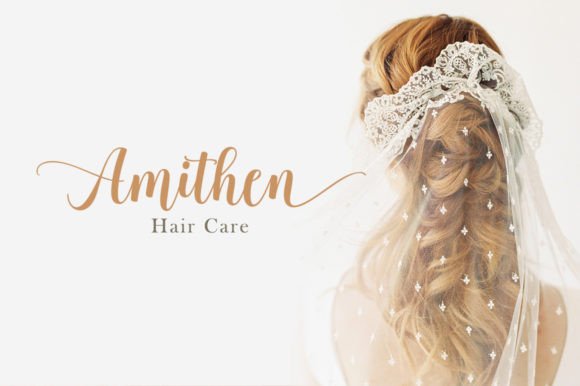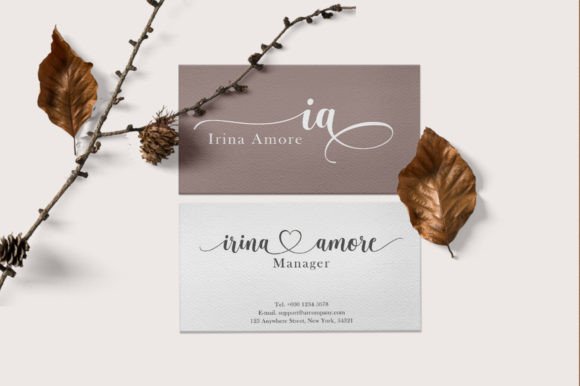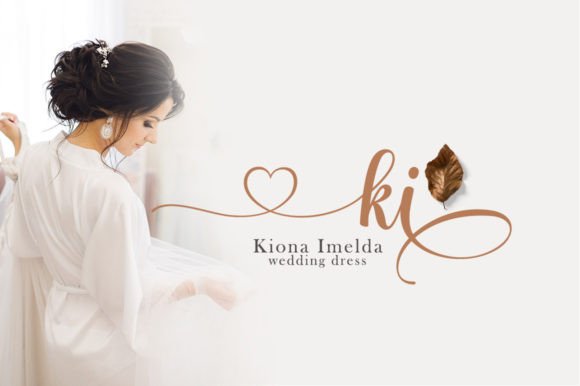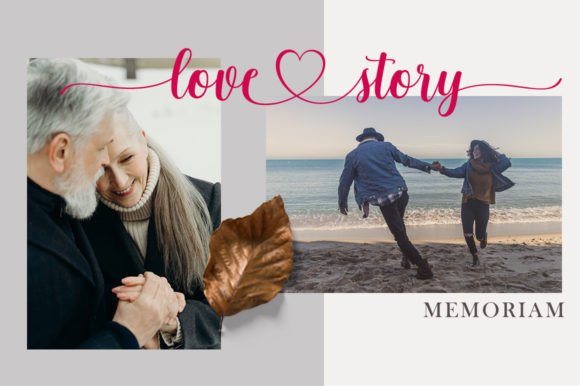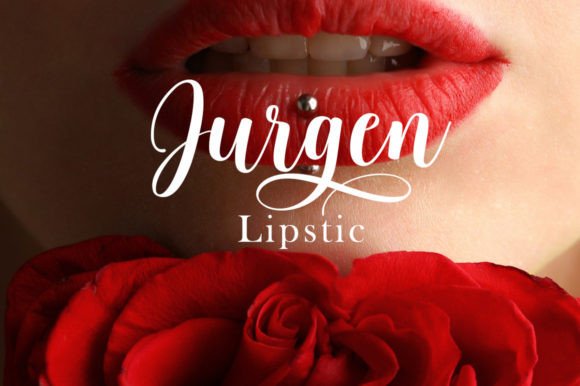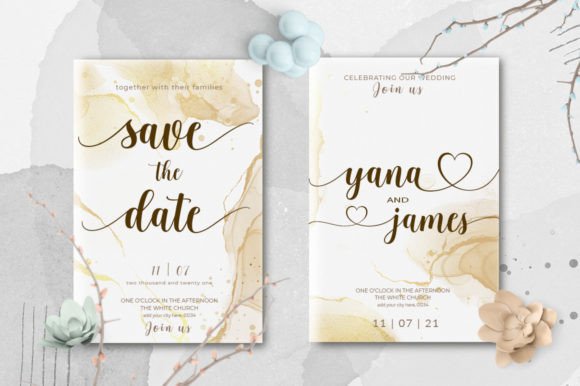
Introducing Adiya Font: Elevate Your Designs with Elegance and Sophistication
In the world of typography, a font can make or break a design. For designers and crafters seeking to add a touch of luxury and refinement to their work, Adiya Font is an exceptional choice. This stunning script font is designed to impress, with its flowing letters and exquisite aesthetic. In this article, we’ll explore the features and benefits of Adiya Font, and how it can elevate your designs to new heights.
A Font of Unparalleled Elegance
Adiya Font is a masterpiece of typographic design. Each letter is carefully crafted to flow effortlessly into the next, creating a seamless and elegant look. This font is perfect for designs that require a touch of sophistication, such as wedding invitations, luxury logos, and high-end branding. With Adiya Font, you can add a level of refinement and poise to your work that will leave a lasting impression.
Key Features of Adiya Font
- Stylish and Exquisite Design: Adiya Font boasts a unique and captivating design that is sure to turn heads.
- Seamless Letter Flow: Each letter flows effortlessly into the next, creating a smooth and elegant look.
- Versatile: Use Adiya Font for a wide range of design projects, from invitations and logos to branding and packaging.
Who Can Benefit from Adiya Font?
Adiya Font is an excellent choice for a wide range of designers and crafters, including:
- Graphic Designers: Add a touch of elegance and sophistication to your designs with Adiya Font.
- Wedding and Event Planners: Create stunning invitations and event materials with Adiya Font.
- Crafters and Scrapbookers: Use Adiya Font to add a touch of luxury to your craft projects.
- Branding and Marketing Professionals: Create high-end branding and marketing materials with Adiya Font.
Tips for Using Adiya Font
To get the most out of Adiya Font, here are a few tips to keep in mind:
- Experiment with different sizes and colors: Adiya Font looks great in a range of sizes and colors, so don’t be afraid to experiment.
- Pair with complementary fonts: Combine Adiya Font with complementary fonts to create a unique and eye-catching design.
In conclusion, Adiya Font is an exceptional script font that is sure to elevate your designs to new heights. With its elegant and sophisticated design, PUA encoding, and versatility, Adiya Font is an excellent choice for designers and crafters seeking to add a touch of luxury to their work. Whether you’re designing invitations, logos, or anything in between, Adiya Font is sure to impress.